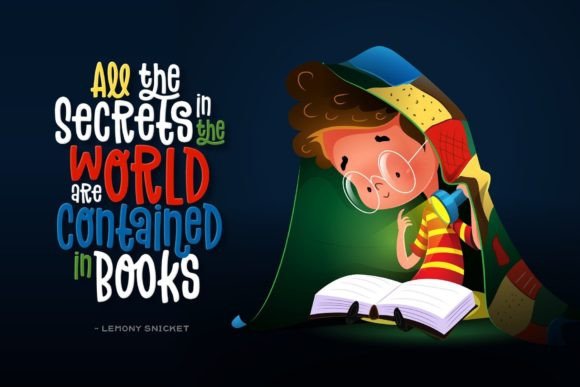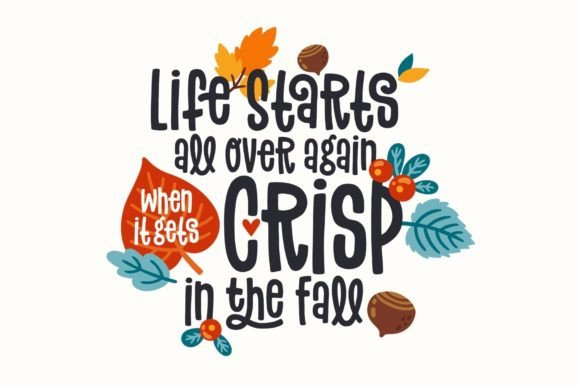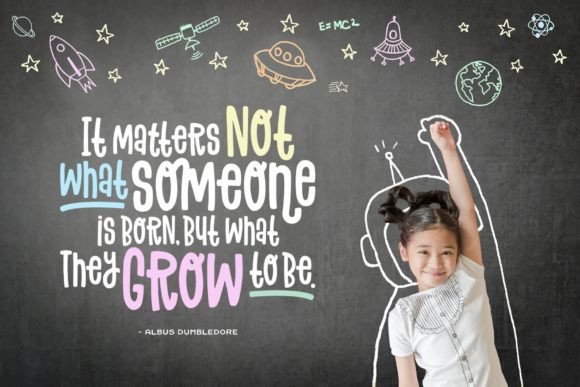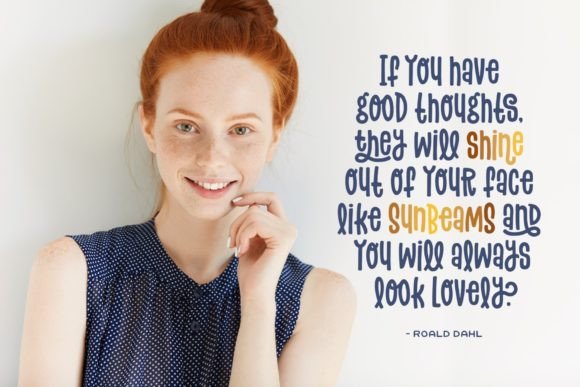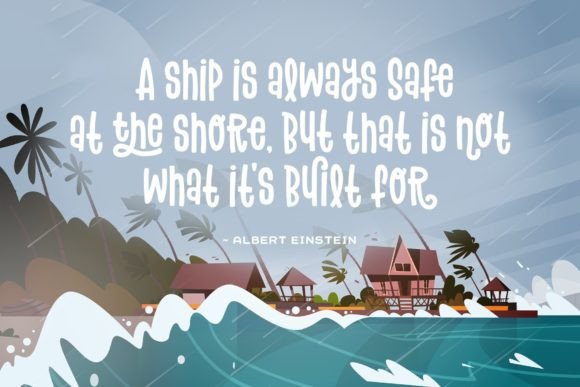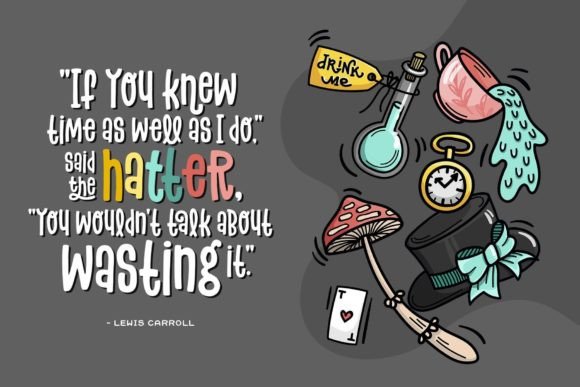
Introducing Flowery Font: A Delightful Sans Serif with a Touch of Whimsy
Are you on the hunt for a font that adds a dash of sweetness and charm to your designs? Look no further than Flowery Font, a captivating sans serif typeface that’s sure to win your heart. This lovely font is designed to bring a touch of elegance and playfulness to your projects, making it perfect for designers and crafters alike.
What Makes Flowery Font So Special?
Flowery Font is more than just a pretty face – it comes with a range of features that make it a versatile and practical choice for any design project. Here are just a few of the things that set it apart:
- Two Variations: Flowery Font comes in two delightful variations, giving you the flexibility to choose the perfect look for your project.
- Ligatures: The font includes ligatures, which are special characters that combine two or more letters into a single glyph. This feature adds an extra touch of elegance and sophistication to your text.
- Alternate Characters: Flowery Font also includes alternate characters, allowing you to mix and match different glyphs to create a unique look.
Flowery Font is a dream come true for designers and crafters who want to add a touch of personality to their projects. Here are just a few ideas for using this lovely font:
- Wedding Invitations: Add a touch of romance and whimsy to your wedding invitations with Flowery Font.
- Party Decor: Use Flowery Font to create adorable party decorations, such as banners, garlands, and gift tags.
- Branding: Give your brand a touch of elegance and sophistication with Flowery Font.
- Stationery: Create beautiful stationery, such as notebooks, journals, and greeting cards, with Flowery Font.
Flowery Font is a delightful sans serif typeface that’s bursting with charm and personality. With its two variations, ligatures, and alternate characters, this font is sure to become a favorite among designers and crafters. Whether you’re working on a wedding invitation, party decor, or branding project, Flowery Font is the perfect choice. So why wait? Download Flowery Font today and start adding a touch of sweetness and whimsy to your designs!
- Sweet and charming sans serif typeface
- Comes in two variations
- Includes ligatures and alternate characters
- Supports OpenType features
- Perfect for designers and crafters